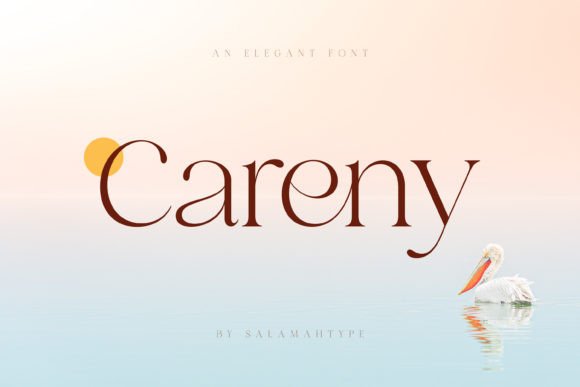
Introducing Careny Font: The Epitome of Elegance and Modernity
In the realm of typography, few fonts manage to strike a balance between classic elegance and modern sophistication as effortlessly as Careny Font. This elegant and modern serif typeface has been turning heads with its refined look, sleek shapes, and perfect curves. Whether you’re working on a magazine layout, logo branding, or any other design project, Careny Font is the ideal choice for those seeking a versatile and fashionable typeface.
The Design Philosophy Behind Careny
Careny Font’s design is rooted in the principle of blending traditional typographic elements with a modern aesthetic. Its creators aimed to craft a typeface that would exude elegance and sophistication without appearing too ornate or outdated. The result is a font that boasts clean lines, subtle curves, and a refined structure, making it perfect for a wide range of applications.
Key Features of Careny Font
- Elegant Serif Design: Careny’s serif design adds a touch of classic elegance to any project, making it suitable for high-end branding, editorials, and luxury goods.
- Modern Aesthetic: The font’s modern aesthetic ensures that it remains fresh and contemporary, perfect for projects that require a current and stylish look.
- Versatility: Careny Font is incredibly versatile, suitable for use in magazine layouts, logo design, packaging, and more.
- Readable: Despite its elegant design, Careny remains highly readable, even at smaller sizes, making it practical for body text as well as headlines.
Applications of Careny Font
The versatility of Careny Font makes it an excellent choice for a variety of design projects. Here are some of the areas where Careny truly shines:
- Magazine and Editorial Design: Add a touch of sophistication to your magazine or editorial content with Careny’s elegant and modern design.
- Logo and Branding: Use Careny to create a lasting impression with your brand’s logo and marketing materials, perfect for luxury brands, fashion labels, and high-end services.
- Packaging Design: Elevate your product packaging with a font that communicates quality, elegance, and sophistication.
- Web Design: Incorporate Careny into your website design to provide a premium user experience and to enhance your brand’s online presence.
Why Choose Careny Font?
Choosing Careny Font for your design project comes with numerous benefits:
- Unique and Distinctive: Stand out from the crowd with a font that is both unique and memorable.
- Highly Adaptable: Whether you’re designing for print or digital platforms, Careny adapts seamlessly to different mediums.
- Support for Multiple Languages: Careny offers extensive language support, making it a great choice for global brands.
Careny Font is a stunning example of modern typography that successfully merges traditional elegance with contemporary design. Its sleek appearance, versatility, and readability make it an excellent choice for designers and crafters looking to add a touch of sophistication to their projects. Whether you’re working on a luxury brand’s logo, a high-end fashion magazine, or a sophisticated website, Careny Font is sure to exceed your expectations.
With Careny, you don’t just choose a font; you make a statement. A statement of elegance, modernity, and a keen eye for detail. Dive into the world of Careny Font today and discover how it can elevate your design projects to new heights of sophistication and style.